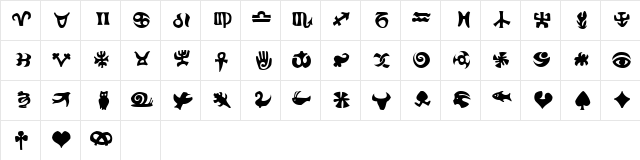
FrutigerSymbols Positiv
Design Context for FrutigerSymbols Typeface
FrutigerSymbols takes a measured approach to typography — its balanced proportions and neutral character make it a reliable workhorse for both digital and print work.